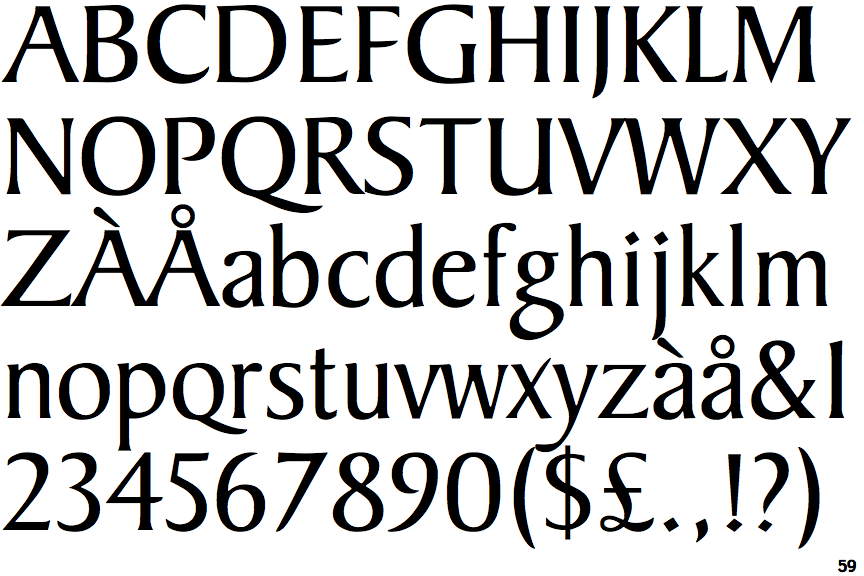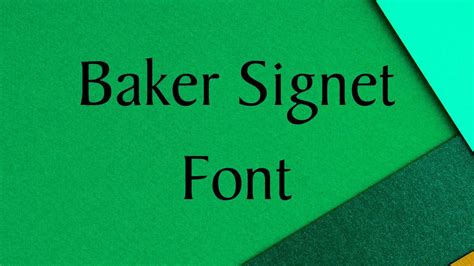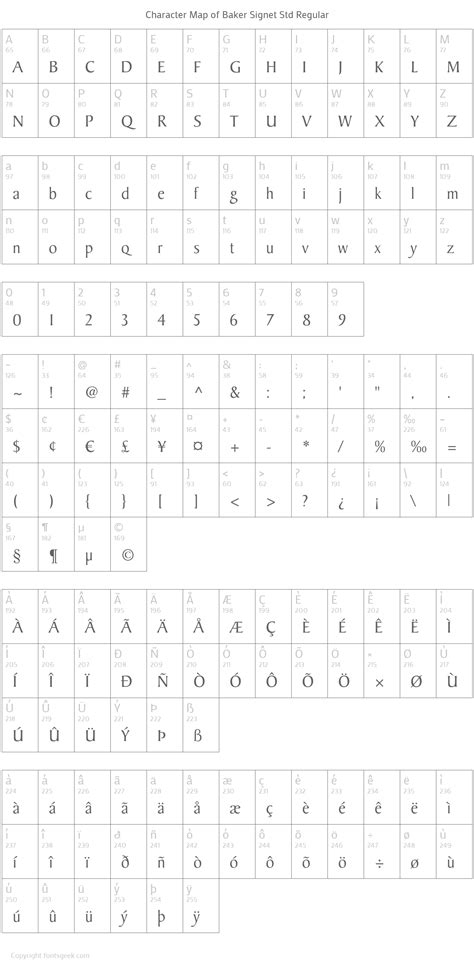
Baker Signet Font
Baker Signet Font - Web baker signet fonts free download. Web explore baker signet designed by evgeny sadko at adobe fonts. A serif typeface with 1 style, available from adobe fonts for sync.
Web baker signet fonts free download. A serif typeface with 1 style, available from adobe fonts for sync. Web explore baker signet designed by evgeny sadko at adobe fonts.
Web explore baker signet designed by evgeny sadko at adobe fonts. Web baker signet fonts free download. A serif typeface with 1 style, available from adobe fonts for sync.
Web baker signet fonts free download. Web explore baker signet designed by evgeny sadko at adobe fonts. A serif typeface with 1 style, available from adobe fonts for sync.
Web explore baker signet designed by evgeny sadko at adobe fonts. A serif typeface with 1 style, available from adobe fonts for sync. Web baker signet fonts free download.
Web baker signet fonts free download. Web explore baker signet designed by evgeny sadko at adobe fonts. A serif typeface with 1 style, available from adobe fonts for sync.
Web baker signet fonts free download. A serif typeface with 1 style, available from adobe fonts for sync. Web explore baker signet designed by evgeny sadko at adobe fonts.
A serif typeface with 1 style, available from adobe fonts for sync. Web explore baker signet designed by evgeny sadko at adobe fonts. Web baker signet fonts free download.
Web baker signet fonts free download. Web explore baker signet designed by evgeny sadko at adobe fonts. A serif typeface with 1 style, available from adobe fonts for sync.
Web baker signet fonts free download. A serif typeface with 1 style, available from adobe fonts for sync. Web explore baker signet designed by evgeny sadko at adobe fonts.
Web explore baker signet designed by evgeny sadko at adobe fonts. A serif typeface with 1 style, available from adobe fonts for sync.